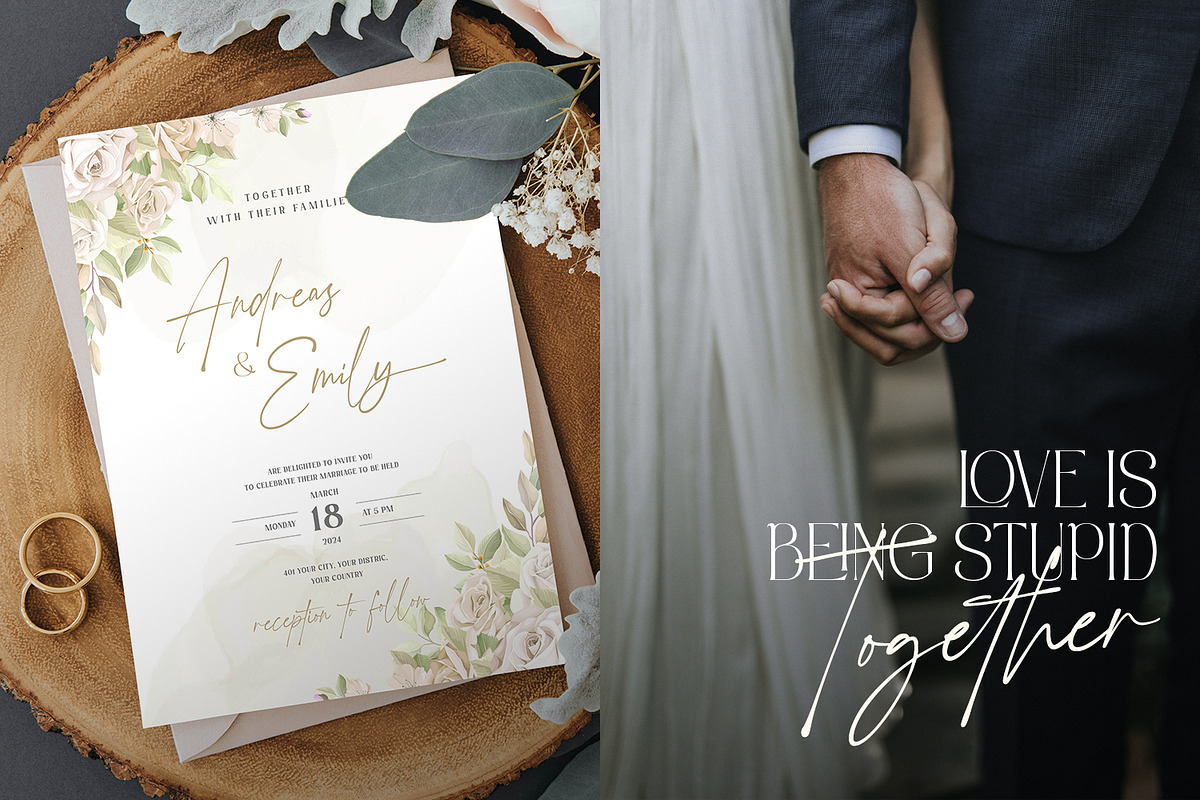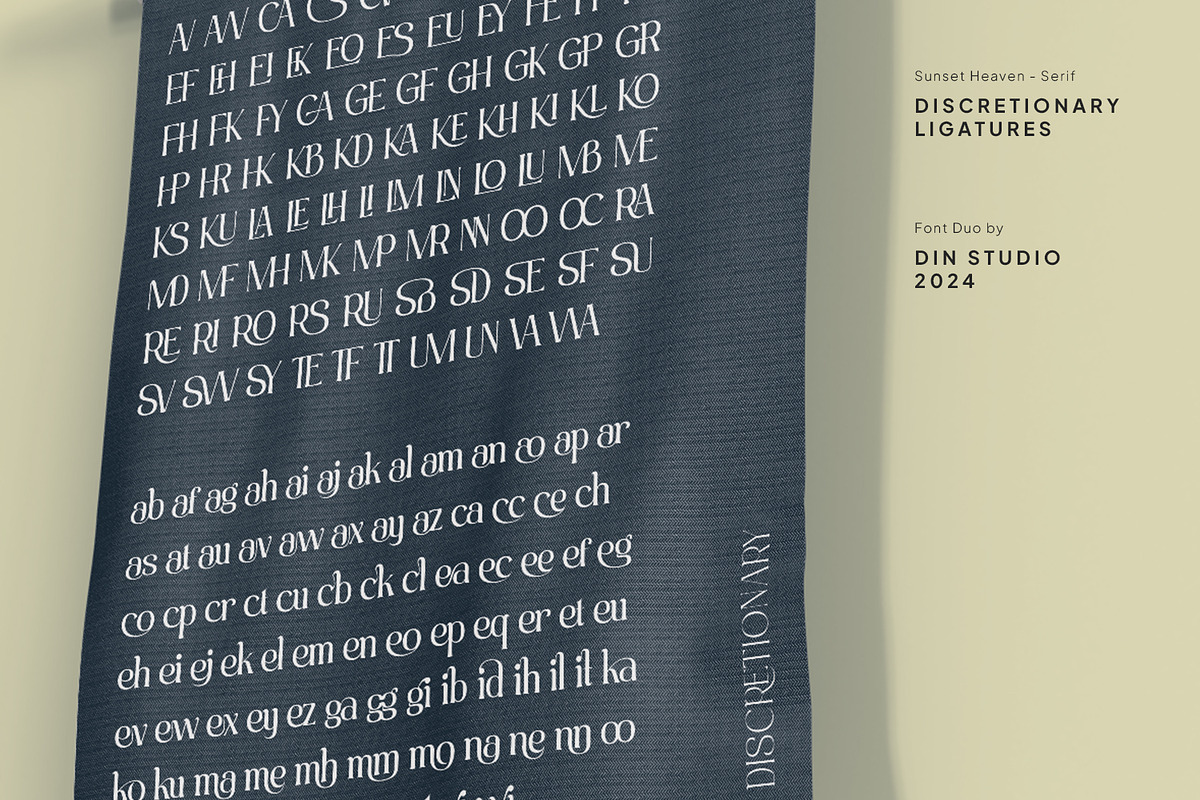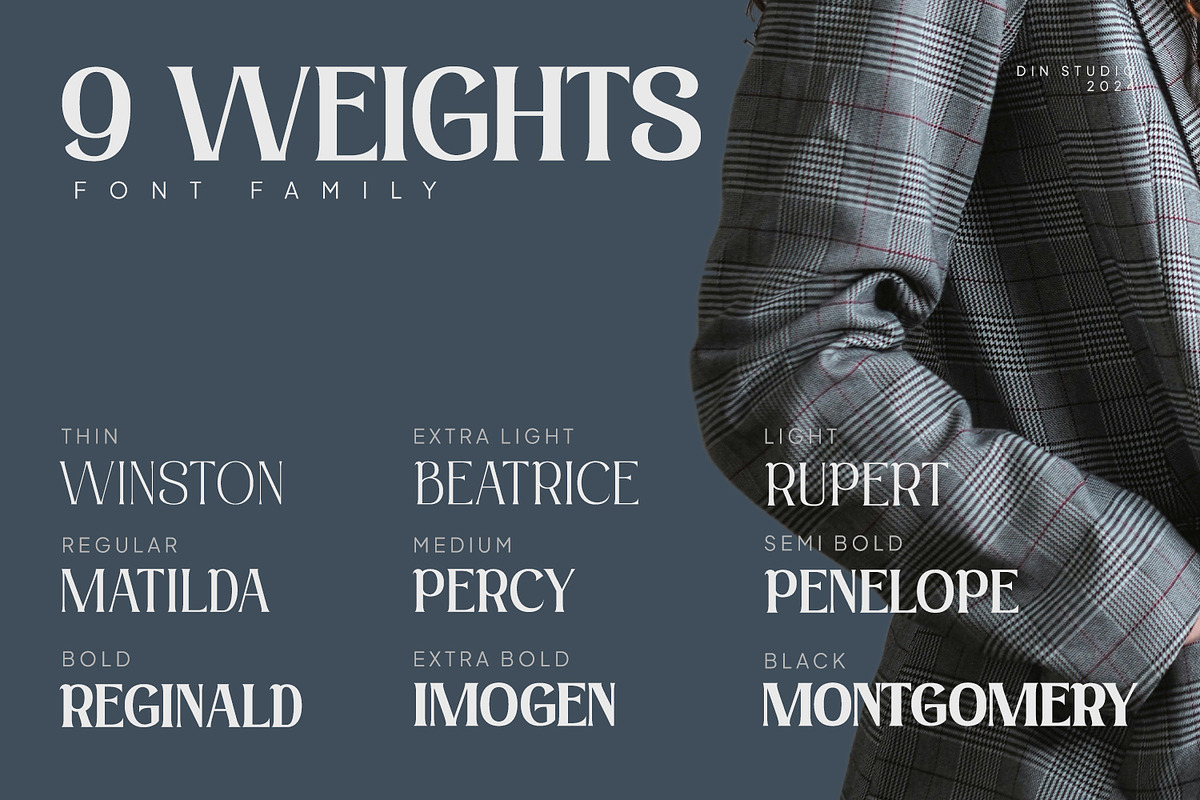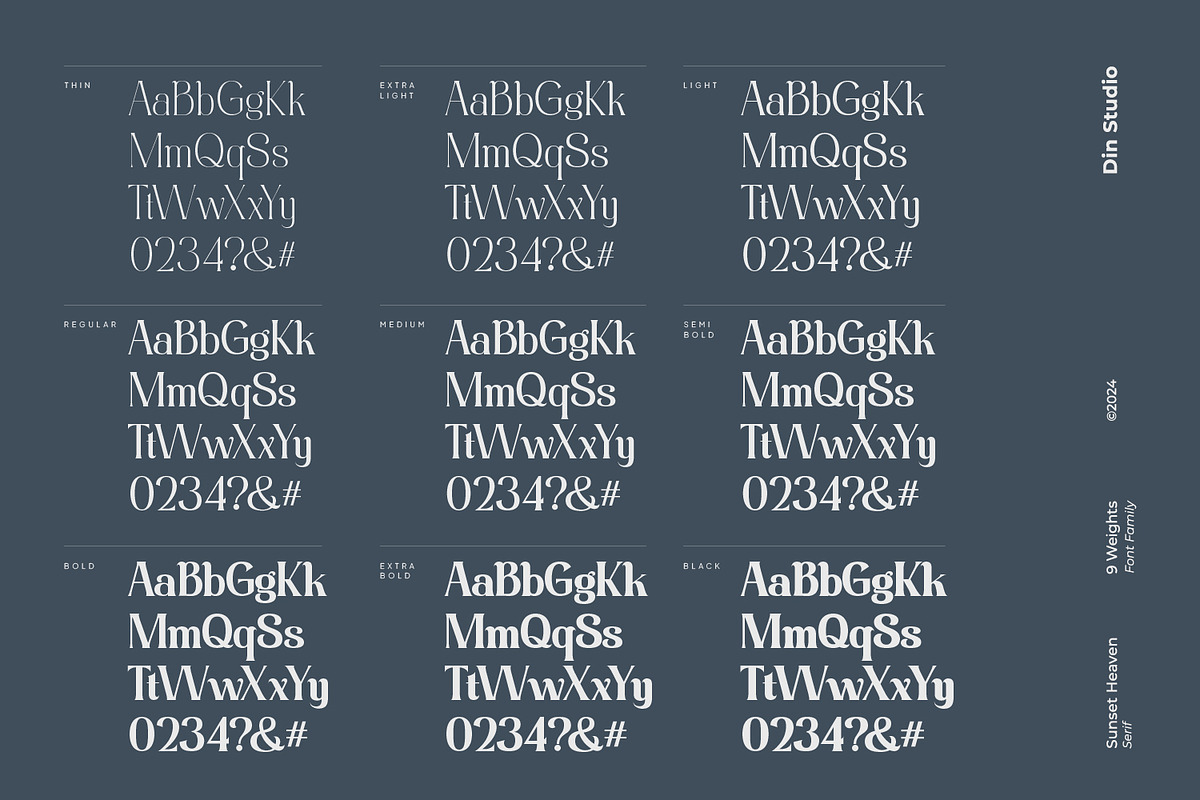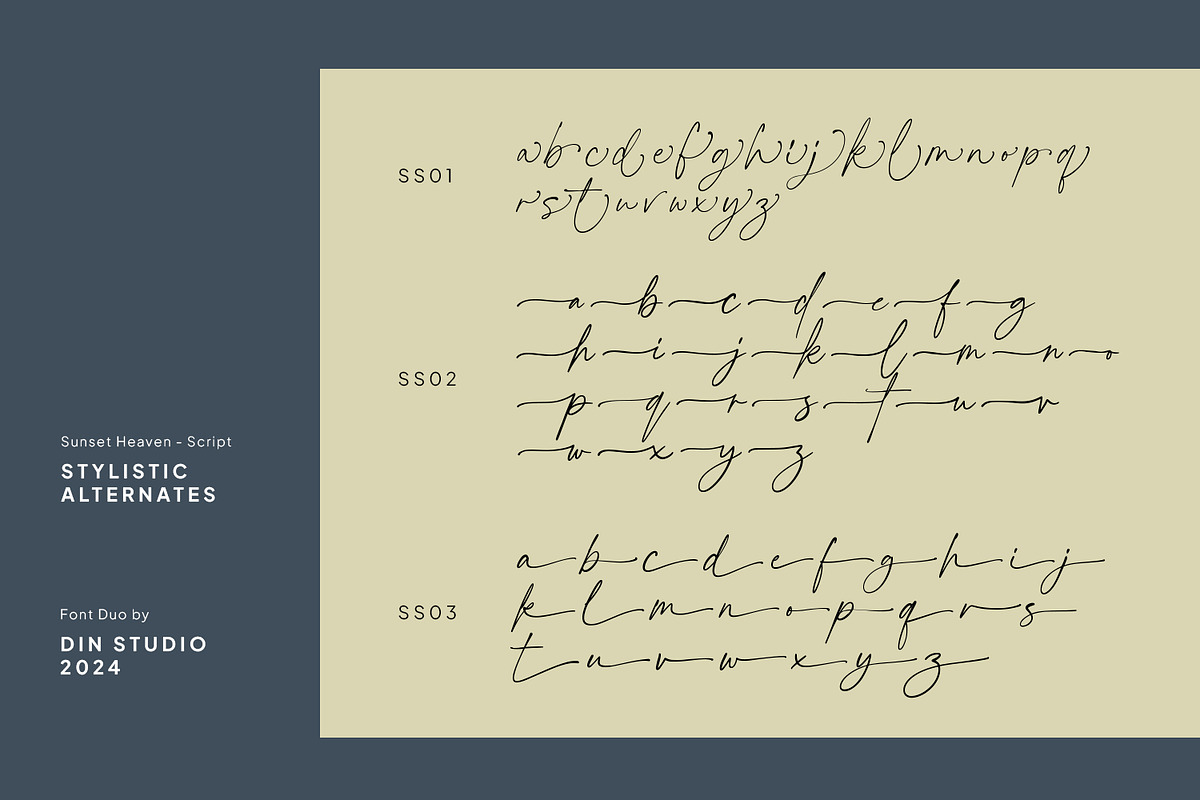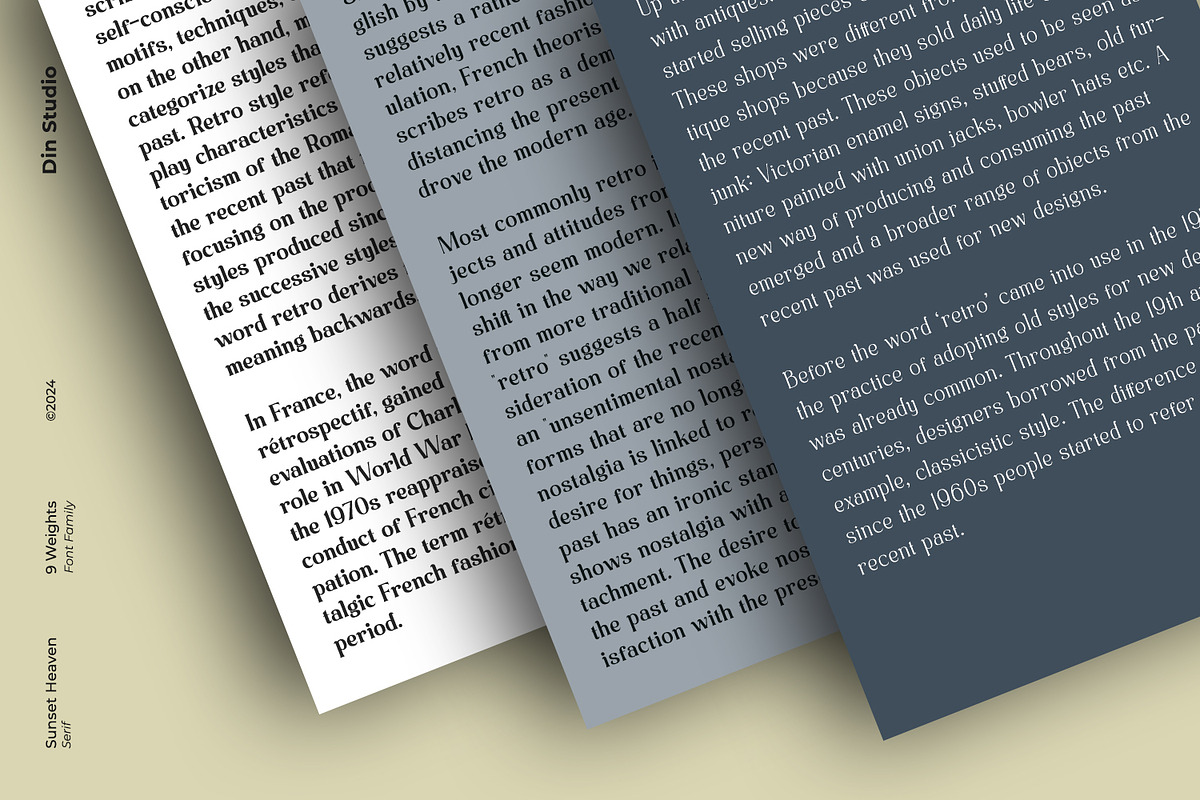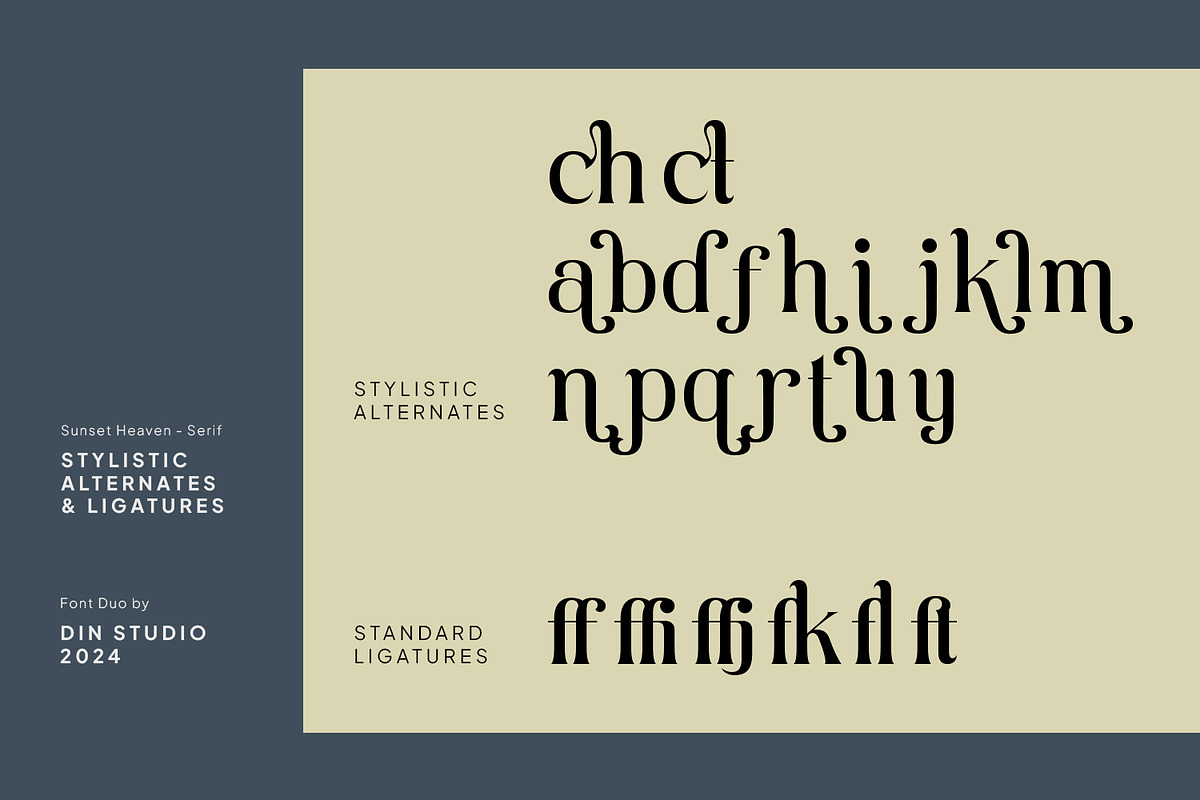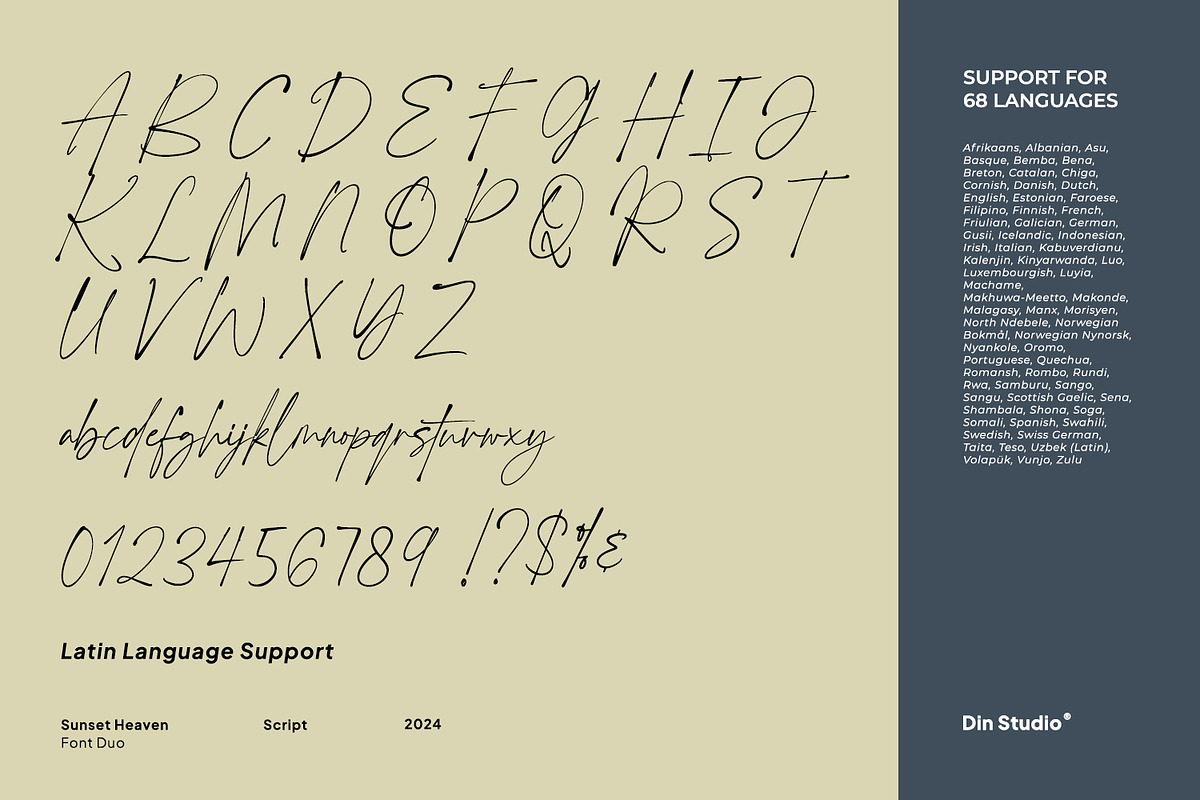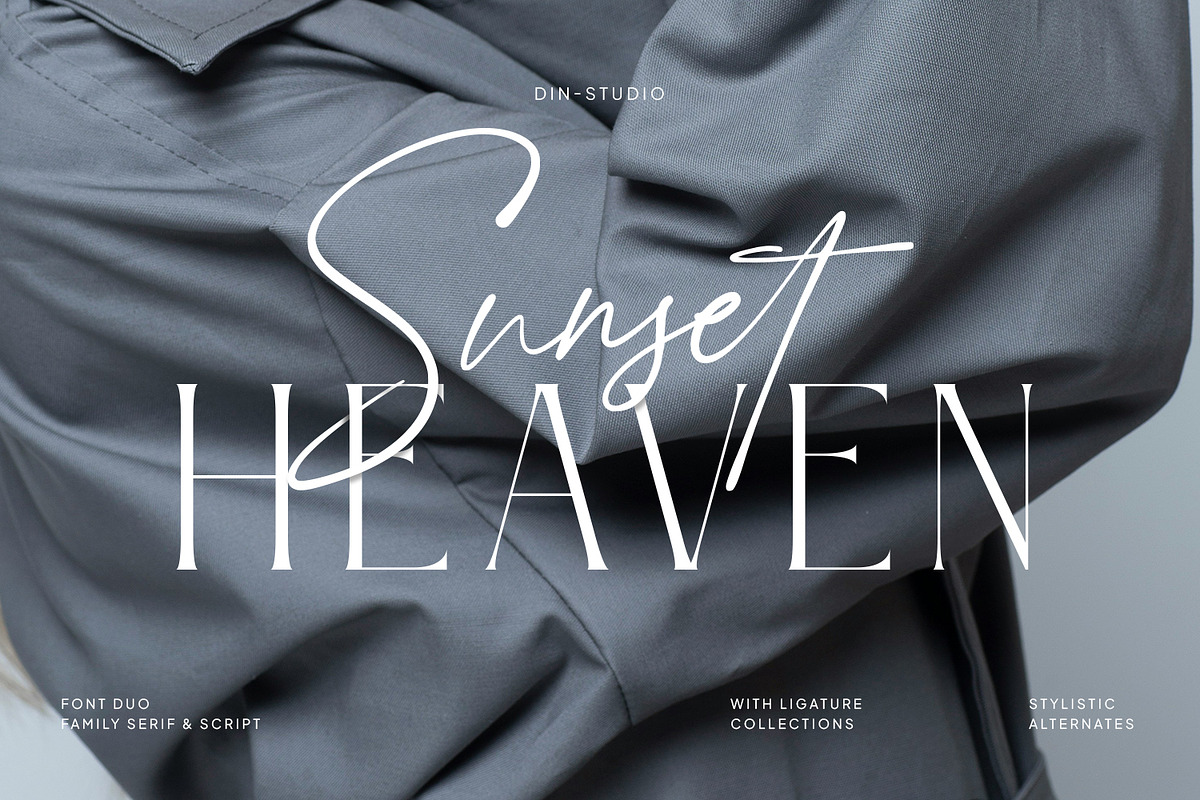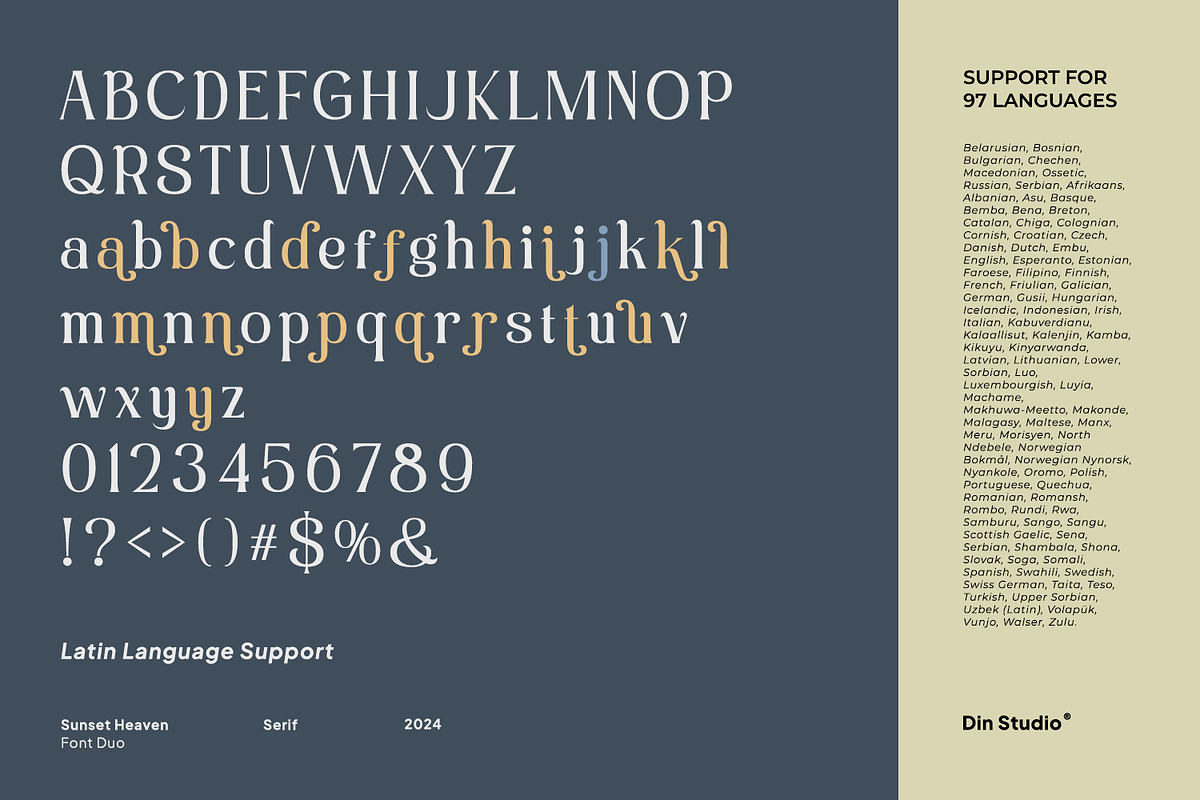
Sunset Heaven
Sunset Heaven is a breathtaking duo font family collection. This exquisite pairing of serif and script fonts embodies the harmonious contrast of nature's wonders. The serif component of Sunset Heaven is a masterpiece of typographic design, featuring an impressive array of 9 weight variations. From the ethereal delicacy of Thin to the commanding presence of Black, this range allows for a dynamic expression of hierarchy and emphasis, catering to a broad spectrum of design needs.
Complementing the robust versatility of the serif, the script font in Sunset Heaven is a homage to the art of cursive handwriting. With its fluid strokes and organic flow, this font adds a personal touch to any project. Together, the serif and script fonts of Sunset Heaven offer a duo of possibilities, enabling designers to craft cohesive yet contrasting designs. In addition, enjoy the features here.
- Stylistic Sets